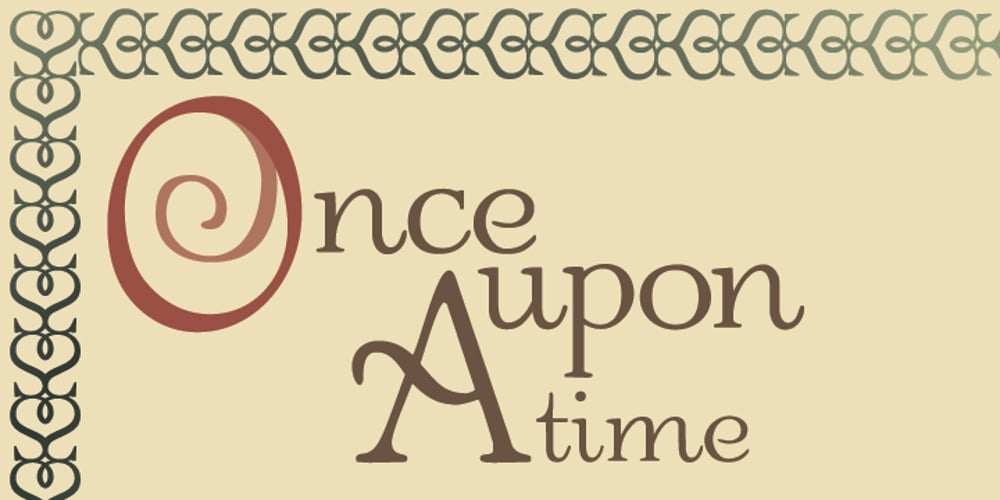
Odette
Odette font
Odette Font Family was designed by Morris Fuller Benton, Rebecca Alaccari and published by Canada Type. Odette contains 6 styles and family package options. The Morris Benton 1918 American classic, Announcement Roman, comes to digital life with more pizzazz than it ever had. Named after the Swan Lake princess, Odette is the ideal choice for titling, poetry, advertising, poster design, and branding anything feminine in nature or target market. The serifs on this elegant typeface were each drawn individually, without resorting to mechanical copy-and-paste methodology. This makes it set like real type, with friendly quirks and curls that sway gently before the eyes. The majuscules have a very slight inclination to the right, that gives the proper type setting a friendlier appearance and a bonding connection with the reader. A whole range of swashes and alternates are included, and a very comprehensive set of ligatures help the discerning typographer set Odette as near type perfection as one can be. The Open Type version of Odette comes in two fonts, compatible with both Mac and PC, that include all the right alternates and ligatures in all the right places for the right push-buttons in the right programs.